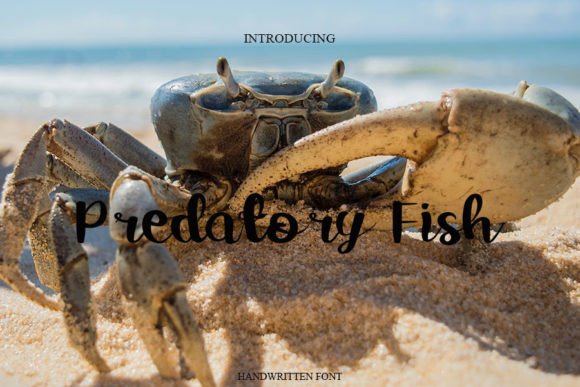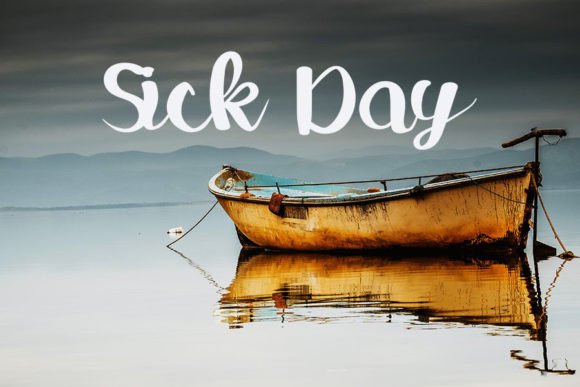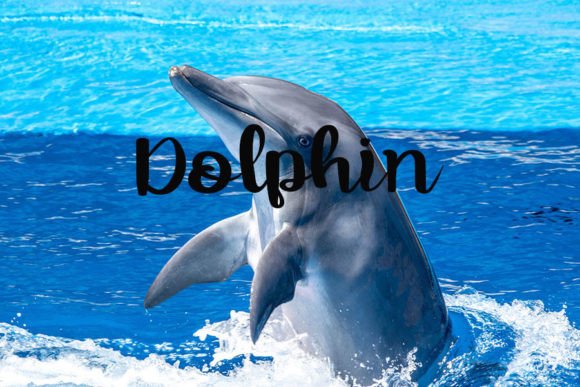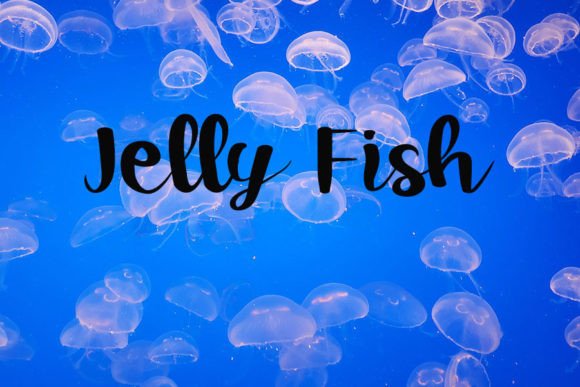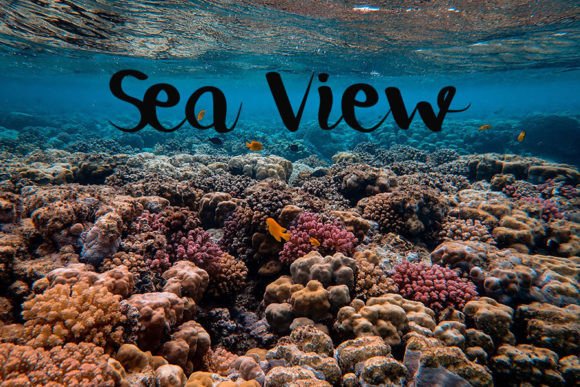
Predatory Fish Font
About Predatory Fish Font
“Predatory Fish is a meticulously crafted handwritten font that marries neatness with beauty, defined by its elegant touch. It stands as a perfect choice for your favorite projects, inviting you to fall in love with its incredibly distinct and timeless style. Harness the power of Predatory Fish to create designs that are nothing short of spectacular!
The font’s neat and beautiful characteristics set the stage for a refined aesthetic. Each letter is a testament to thoughtful design, presenting a harmonious balance that resonates with elegance. Predatory Fish becomes more than just a typeface; it becomes a signature style that enhances the visual appeal of your projects.
Whether you’re working on invitations, branding materials, or any other creative endeavor, Predatory Fish proves to be a versatile companion. Its distinct and timeless style elevates the overall design, giving your projects a sophisticated edge. The font seamlessly adapts to various applications, making it a reliable choice for those seeking a touch of refinement.
Imagine Predatory Fish gracing your designs, adding a unique and distinguished flair to each project. Its handwritten charm becomes the defining element that sets your creations apart. The font’s timeless appeal ensures that your designs maintain a classic quality while still exuding a contemporary touch.
As you explore the nuances of Predatory Fish, you’ll discover its potential to transform ordinary projects into visual masterpieces. Let it be the muse for your creativity, guiding you to craft designs that leave a lasting impression. With Predatory Fish, every stroke becomes a brushstroke of elegance, making it an invaluable asset for designers who appreciate the artistry of typography.”